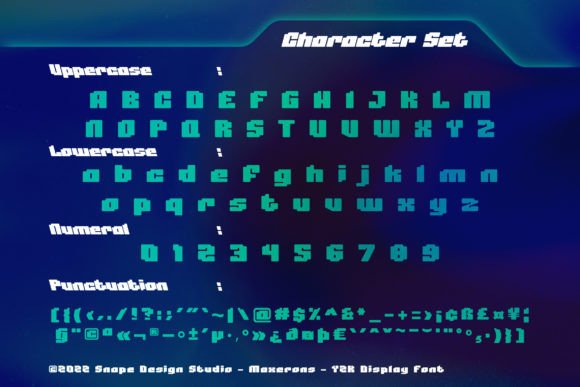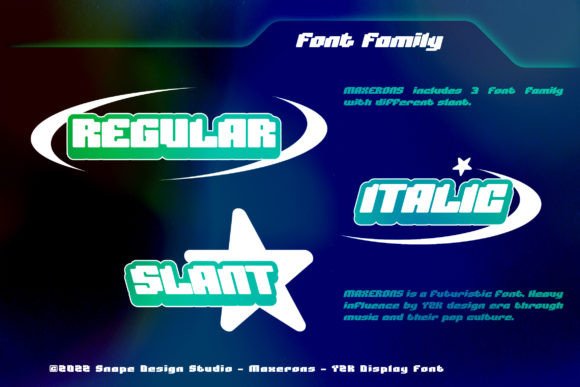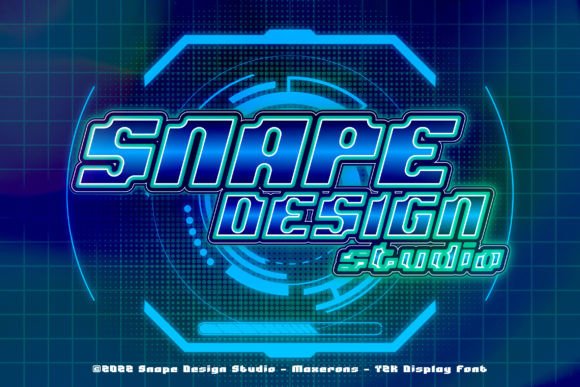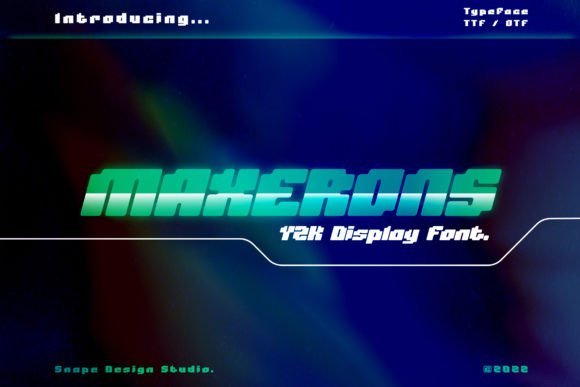
Introduction to Maxerons Font
Maxerons is a modern and futuristic display font.
Masterfully designed to become a true favorite, this font has the potential to bring each of your creative ideas to the highest level .